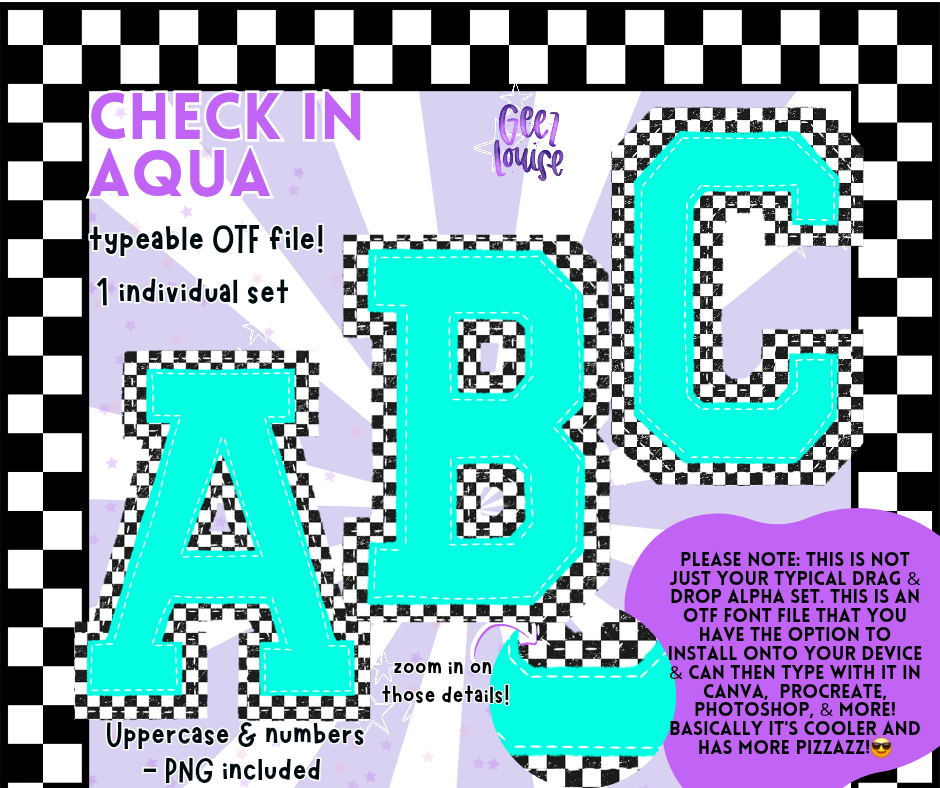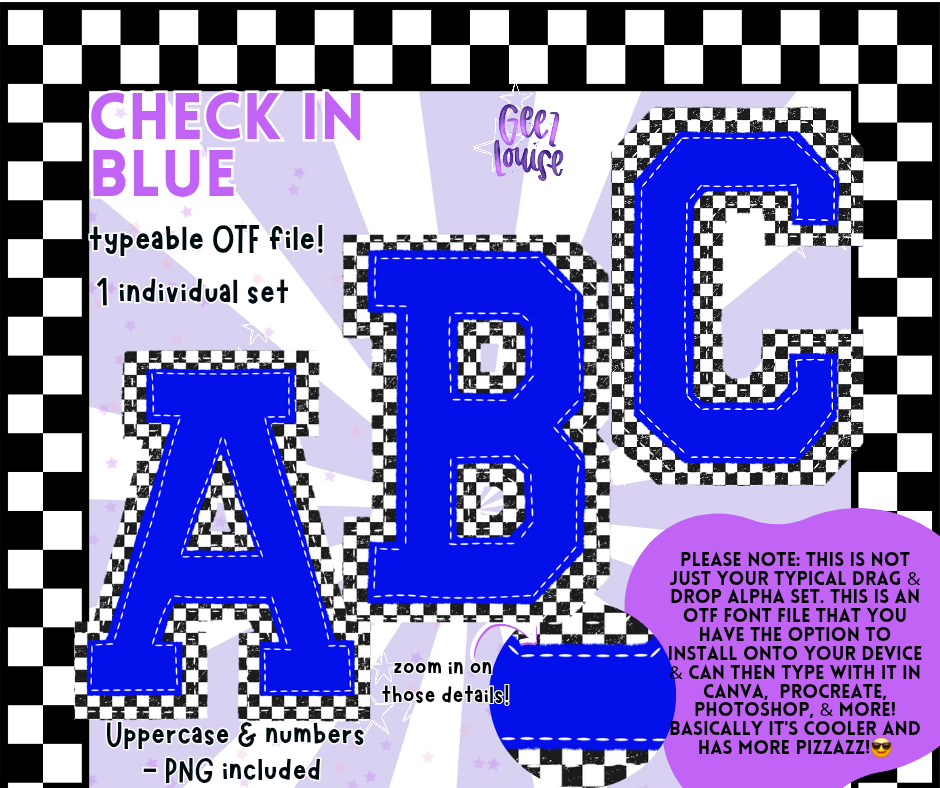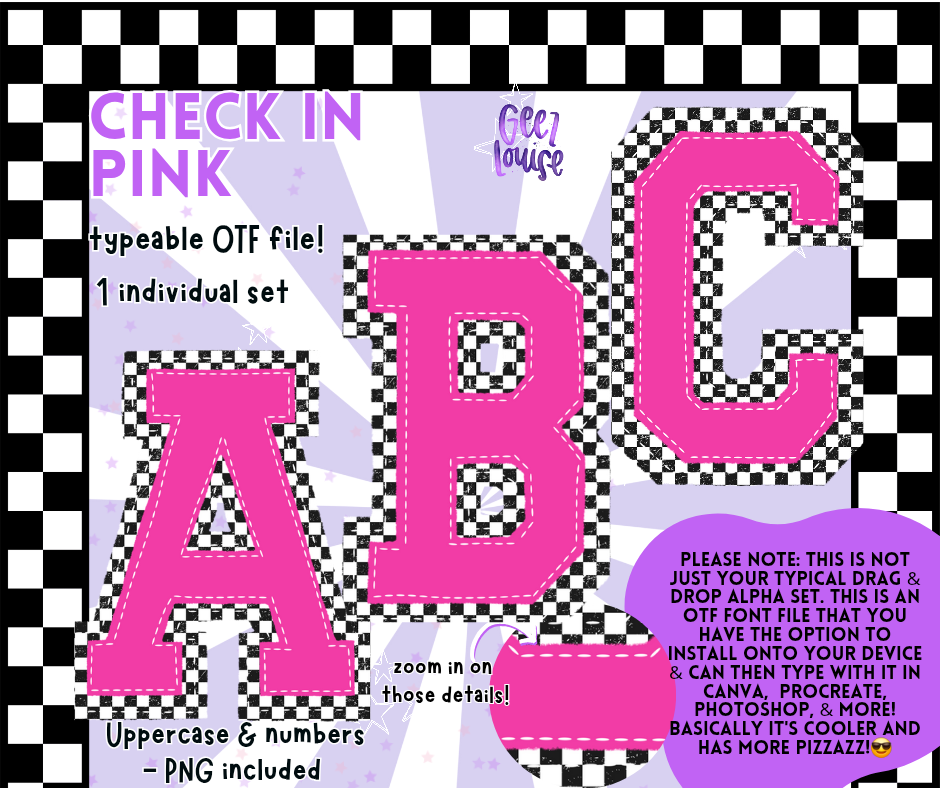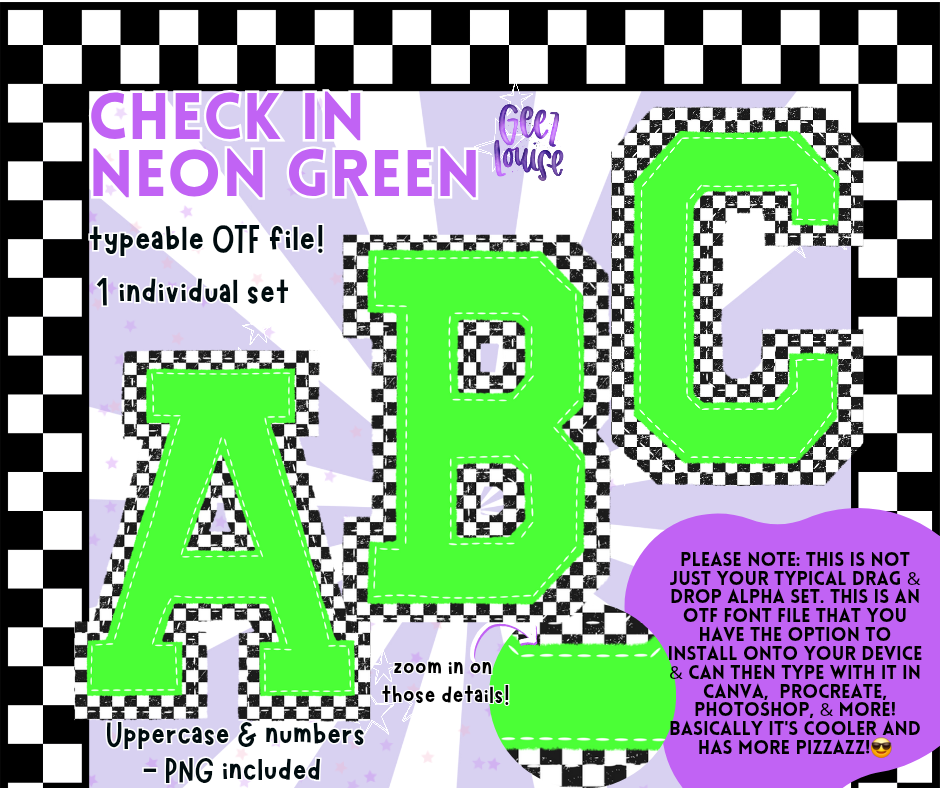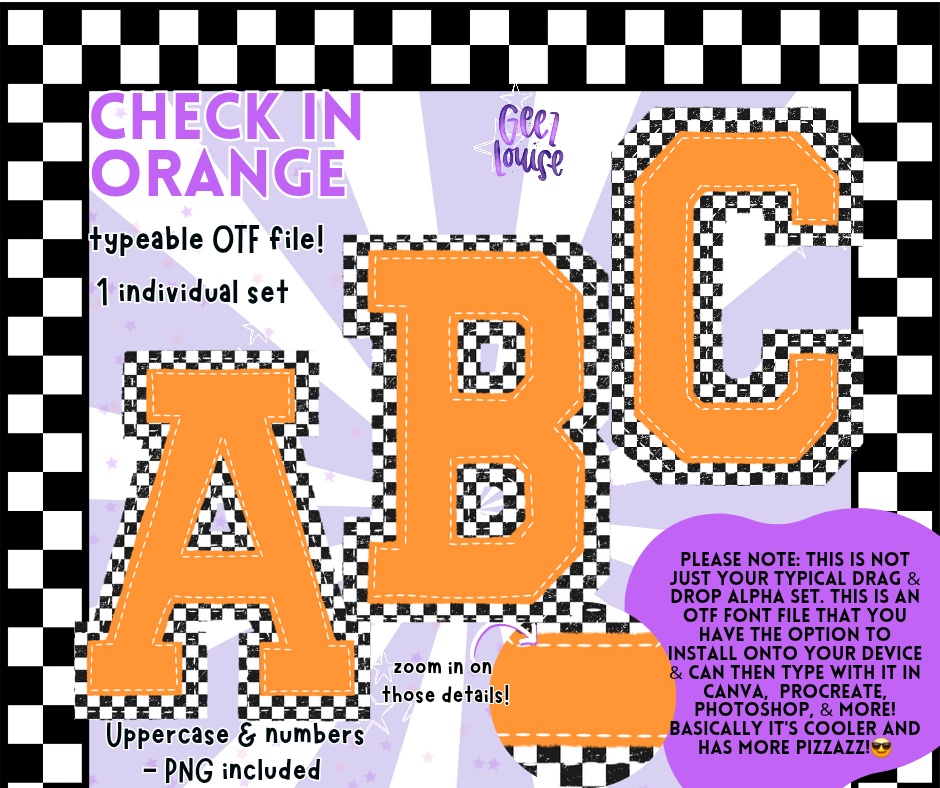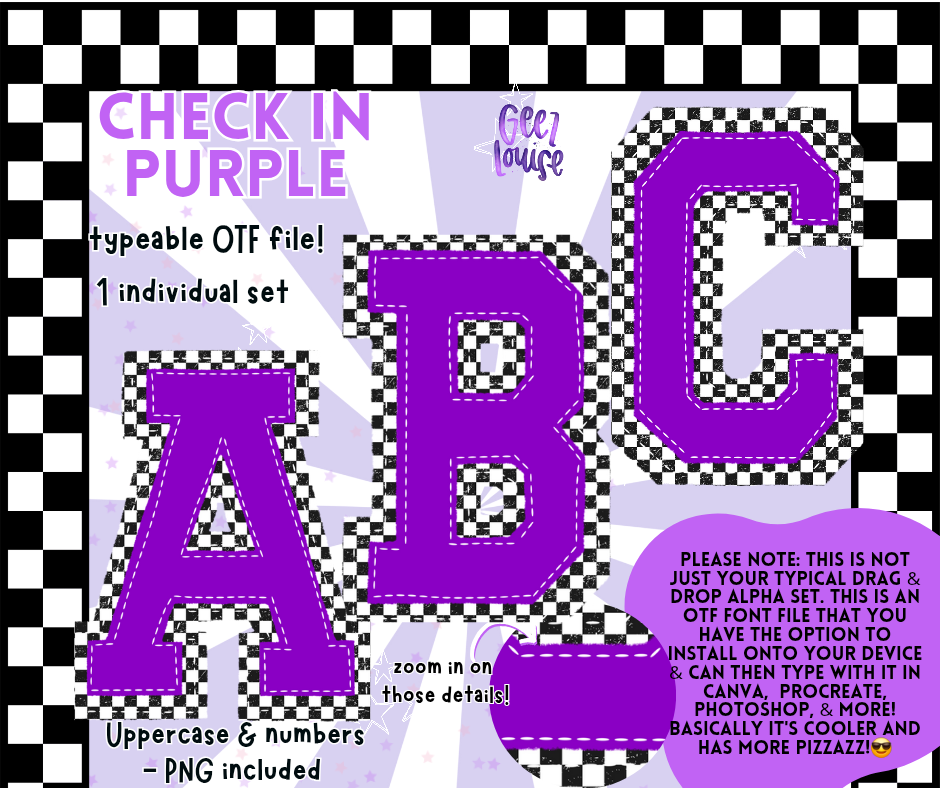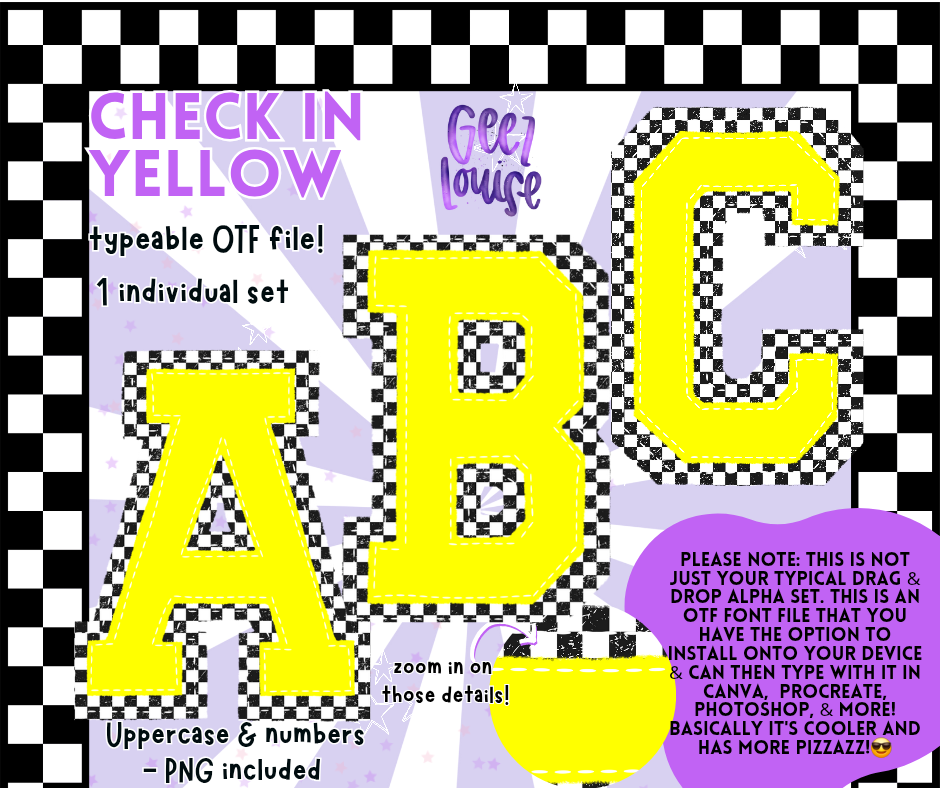
Check It Alpha Series – OTF Fonts + PNG | Multiple Color Variants
Say hello to the Check It Alpha Series – a bold checkerboard vibe with more pop than your average alpha. Each set includes a full uppercase and number set as both PNGs and a typeable OTF font, making it perfect for Canva, Procreate, Photoshop, and more. Use it in digital designs, shirt mockups, stickers, or anything that needs a little more POW.
✨ Style: Bold, blocky, and checker-licious